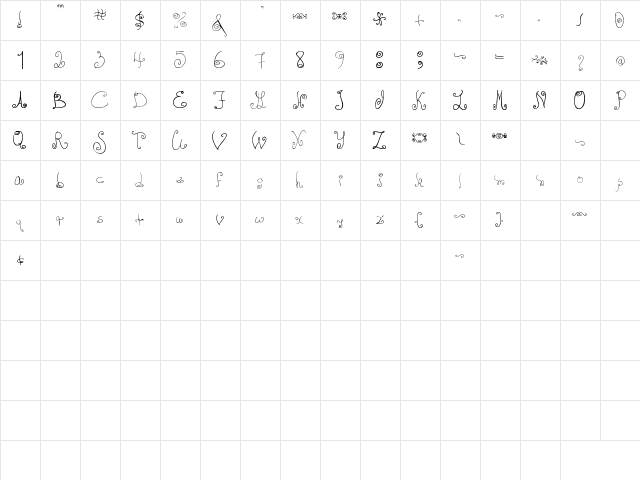
elaine Regular Font Preview
elaine Regular
Design Context for elaine Typeface
elaine is a composed and adaptable typeface that performs quietly and consistently across a wide range of design contexts.